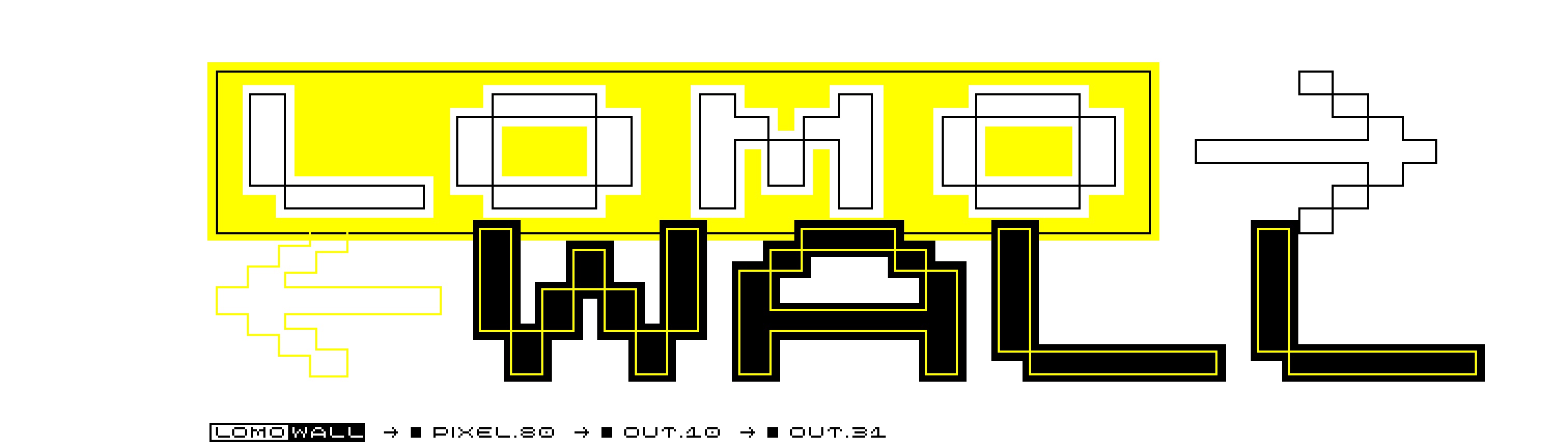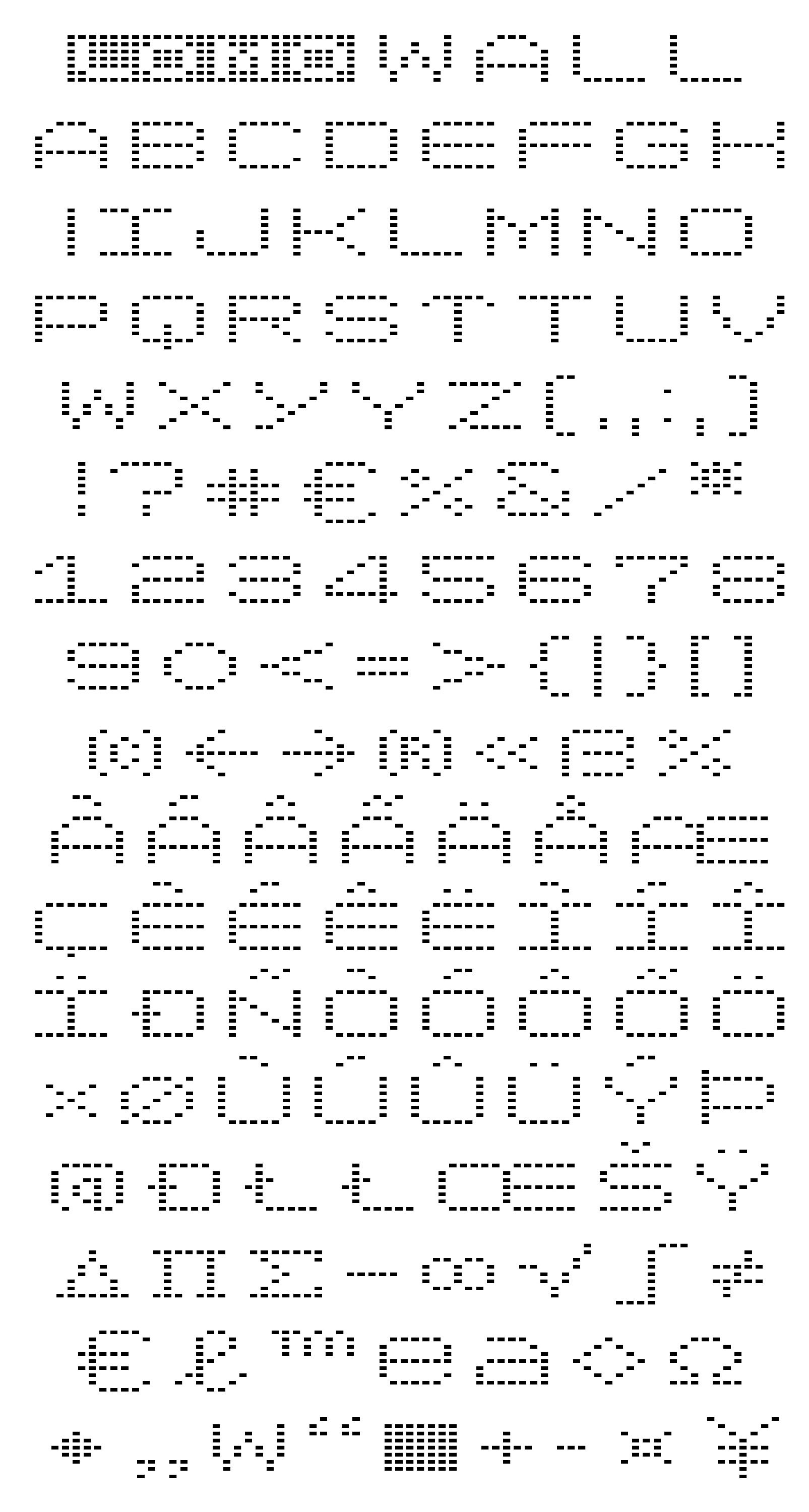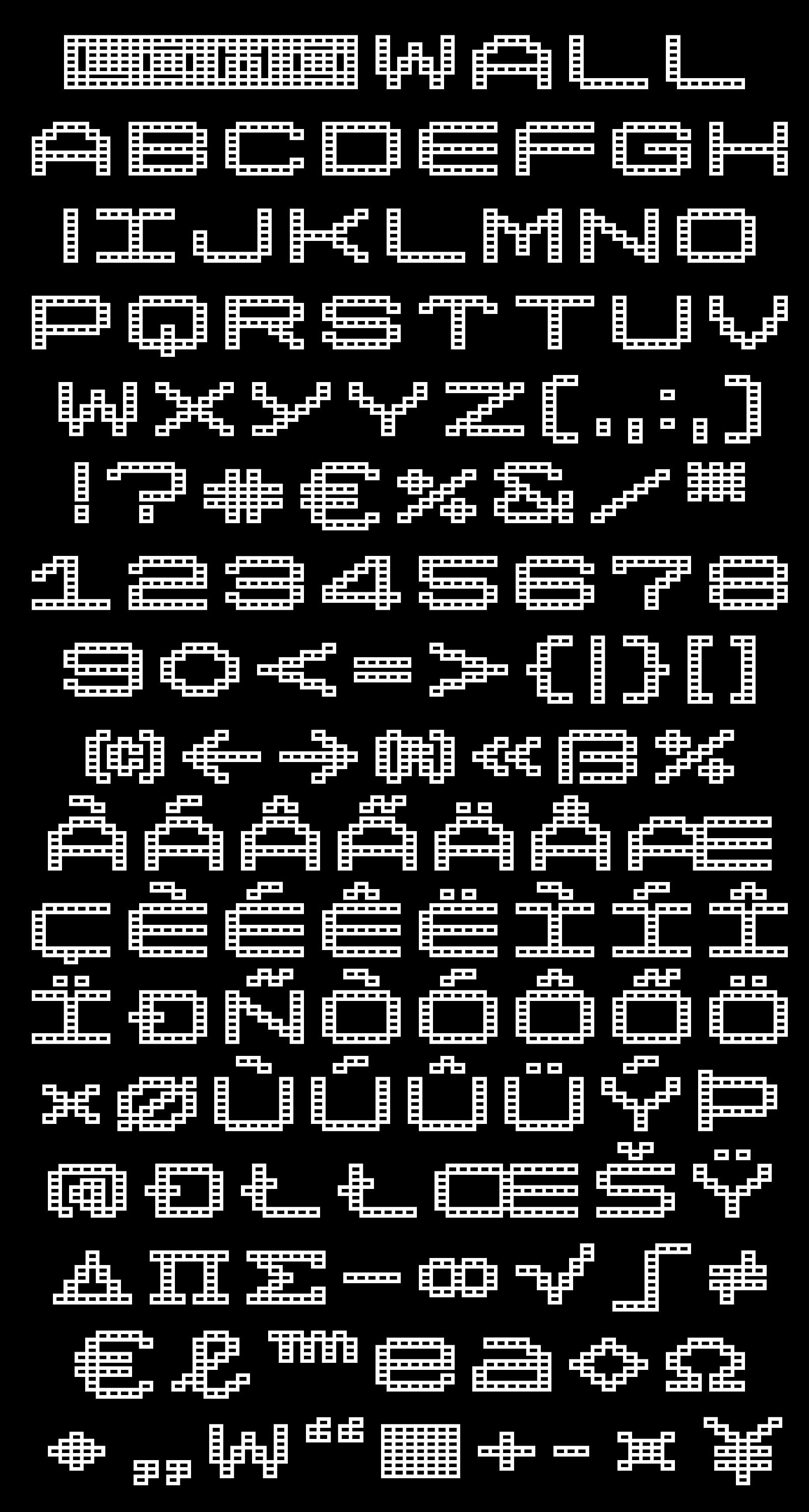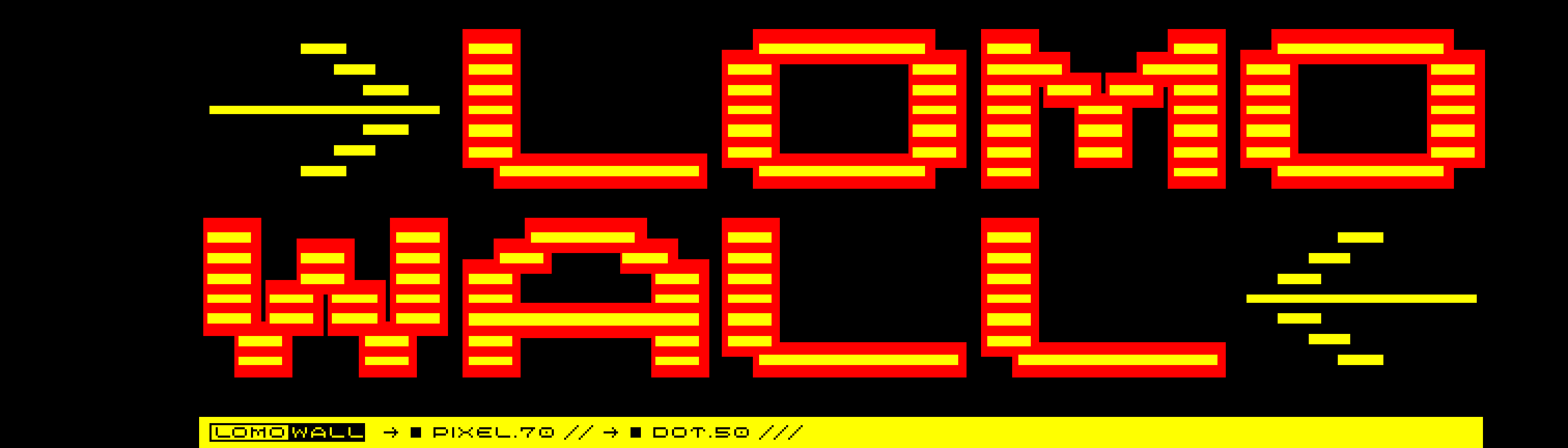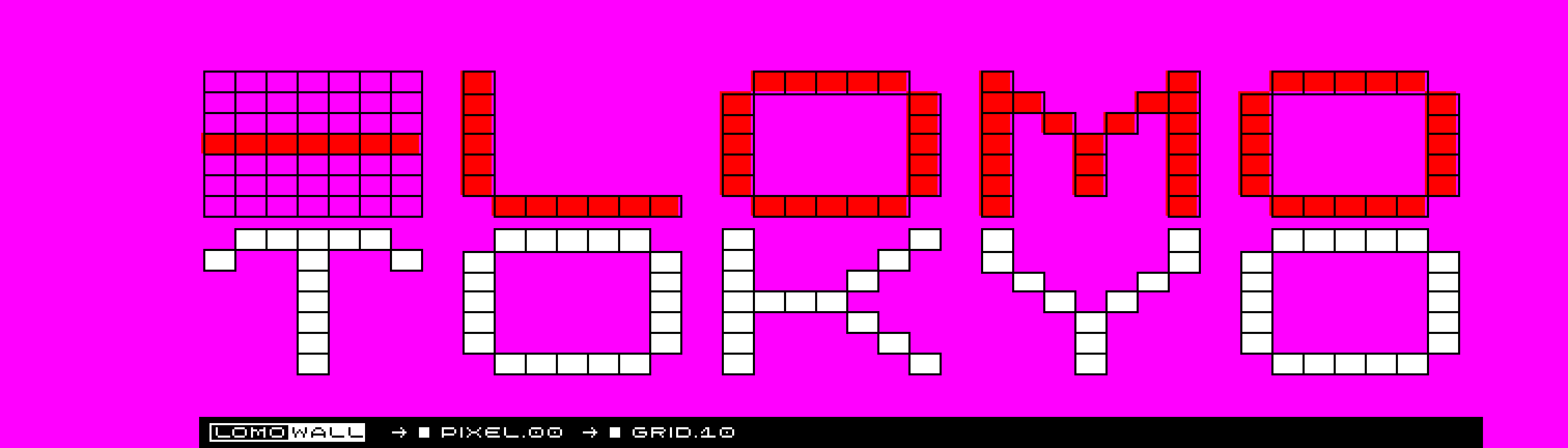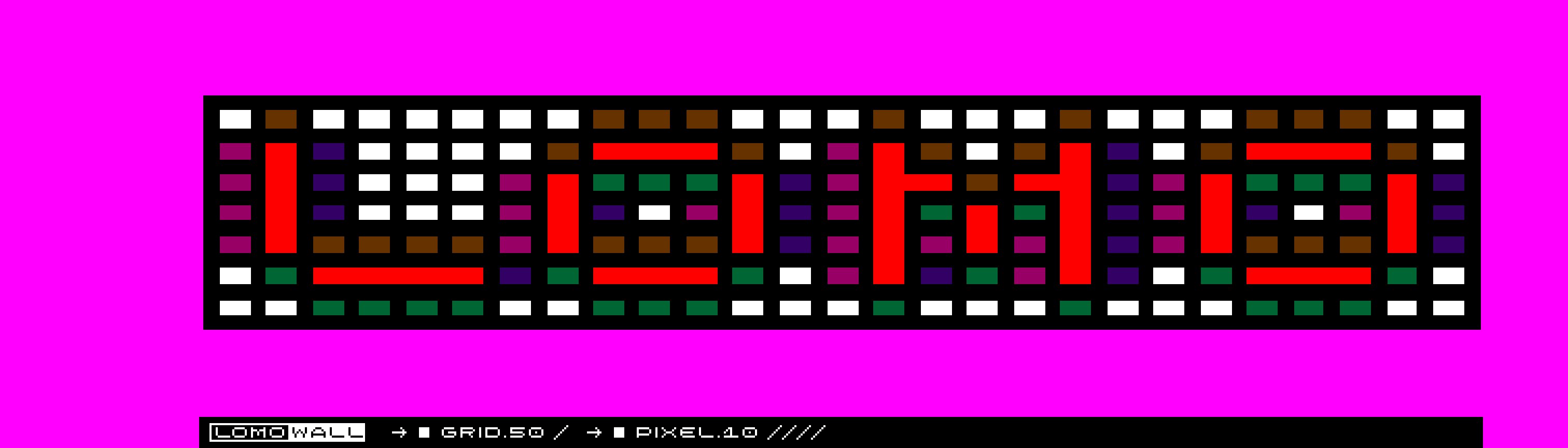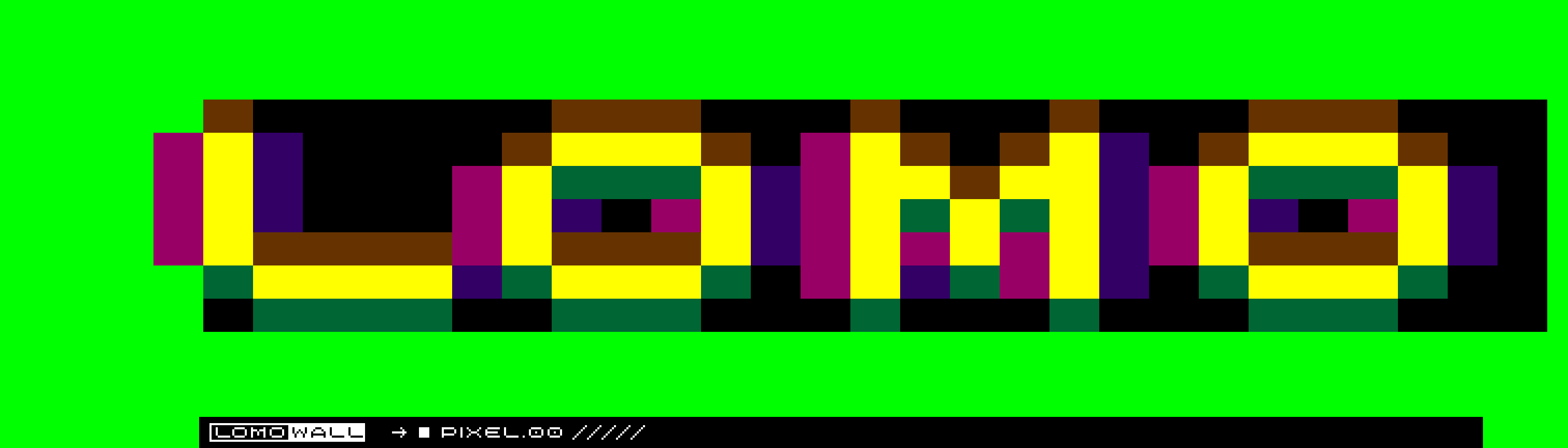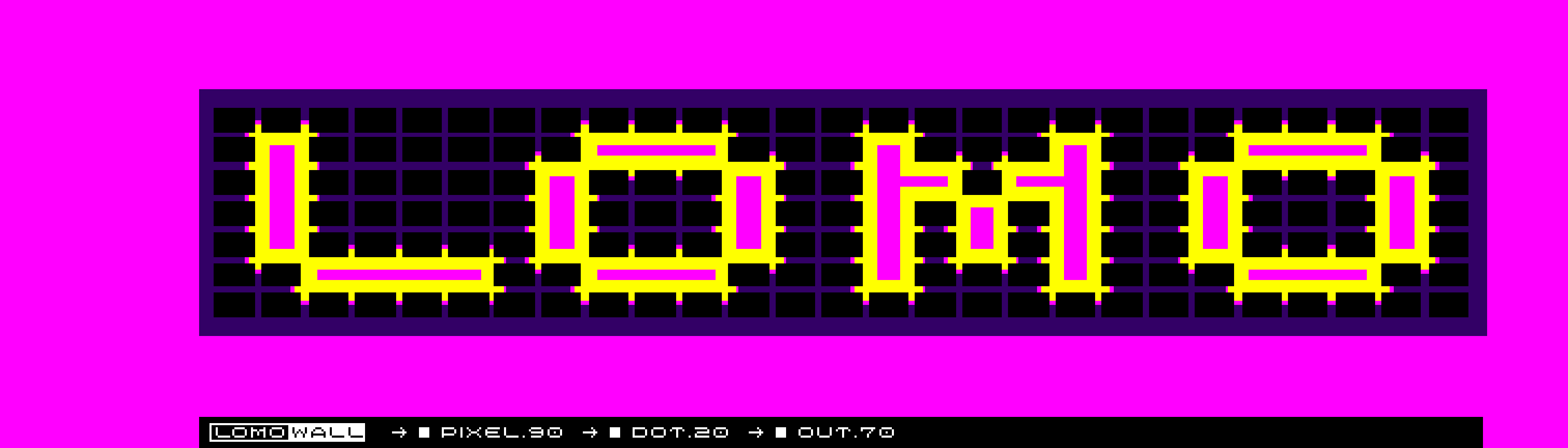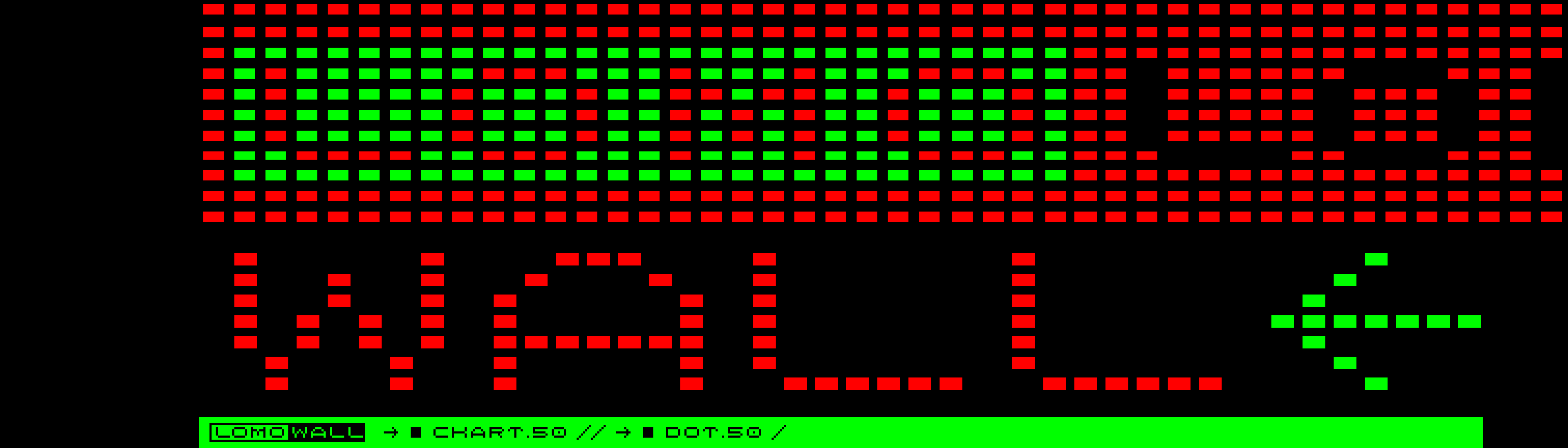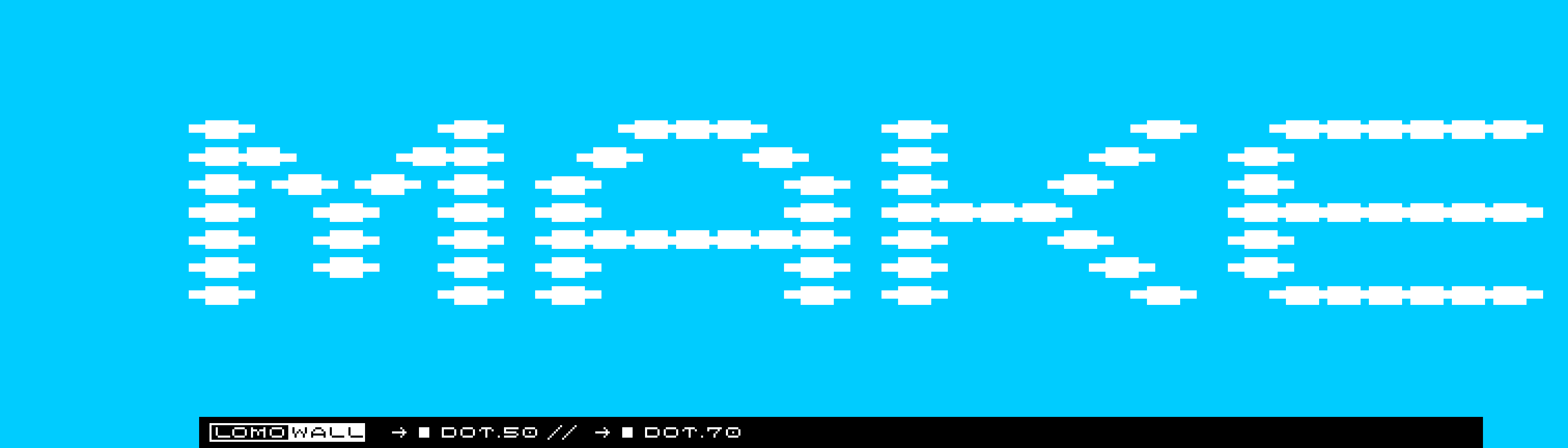
Lomo Wall
1997–1998
Inspired by the photo walls of Lomo Art Director Bernhard Winkler, LomoWall was created in 1997–1998. The starting point for this font family is the standard photo formats 10x7 or 15x10 used to design the Lomo walls; this resulted in the concept and grid for the title font. Despite the rectangular grid point (ratio 3:2), pixel-perfect graphics for the screen can be created with font sizes of 18 points and above.
The various font styles can be individually combined to create an infinite number of design possibilities and designs. LomoWall is a font construction kit and was released by Linotype/Monotype in 2002.
LomoWall has been released in 14 font styles.
In the original version of the Lomo Wall font, 46 font styles were designed. Linotype/Monotype subsequently released only the 14 most important styles. The animation shows this first font variant.